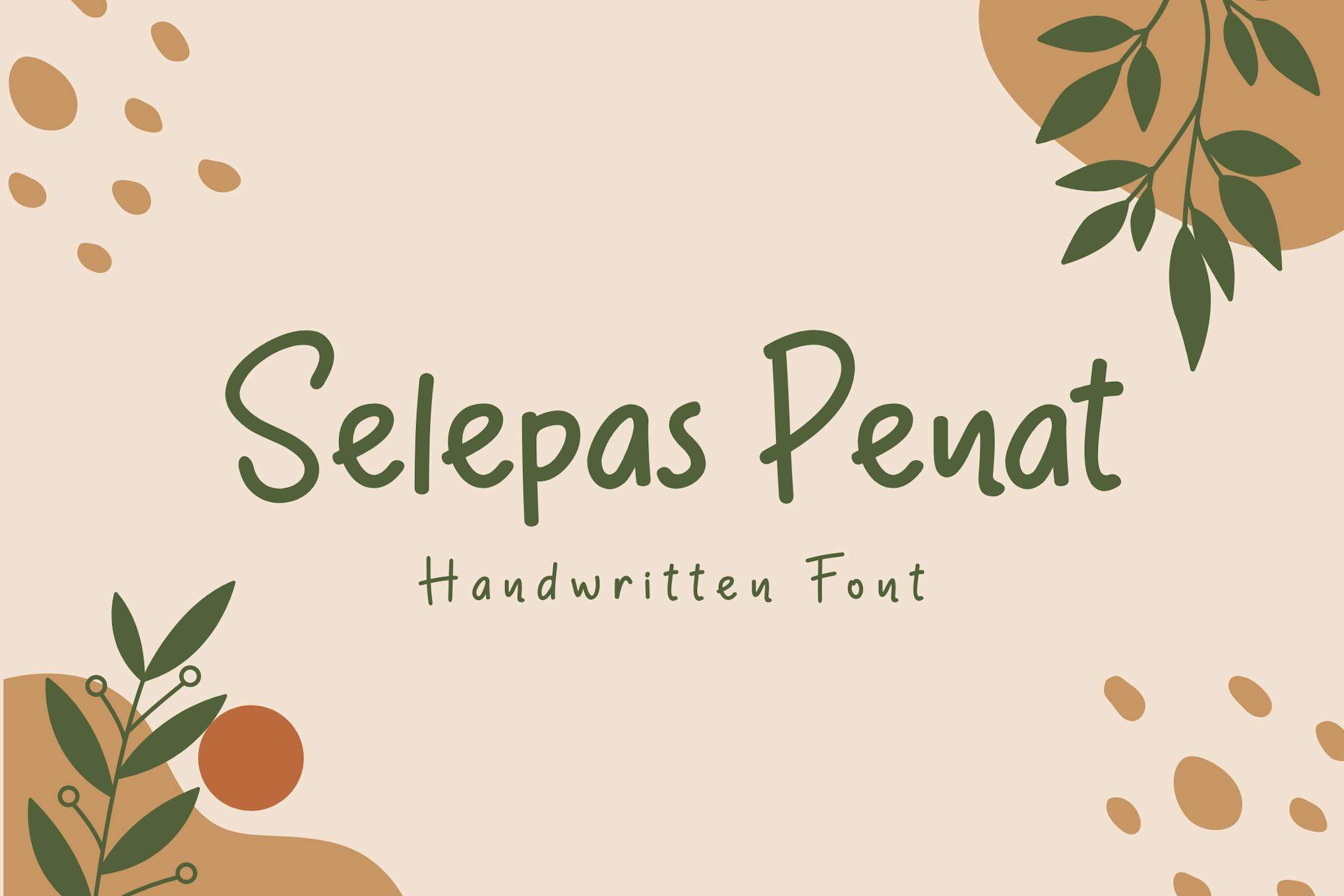
Selepas Penat | Handwritten Font
Perfect for personal branding, invitations, social media posts, greeting cards, and casual designs.
The Selepas Penat | Handwritten Font excites designers with its natural, flowing handwritten style that adds warmth and personality to any creative project.
The Selepas Penat | Handwritten Font Free Download is a charming typeface designed to bring an authentic and friendly touch to your designs. Its smooth strokes and organic flow make it ideal for projects requiring a personal, approachable feel. Whether you're working on invitations, branding, or social media visuals, Selepas Penat enhances your typography with casual elegance.
One of the standout features of Selepas Penat | Handwritten Font is its versatility in creating intimate and relatable designs. It maintains readability while delivering a genuine handwritten effect that resonates with audiences.
In branding, Selepas Penat conveys warmth, creativity, and authenticity. It pairs beautifully with soft color palettes, minimalist layouts, and textured backgrounds, helping brands foster genuine connections.
For digital projects, this font enhances website headers, digital invitations, and social media posts with its handwritten charm. Its unique style ensures your digital content stands out with personality and warmth.